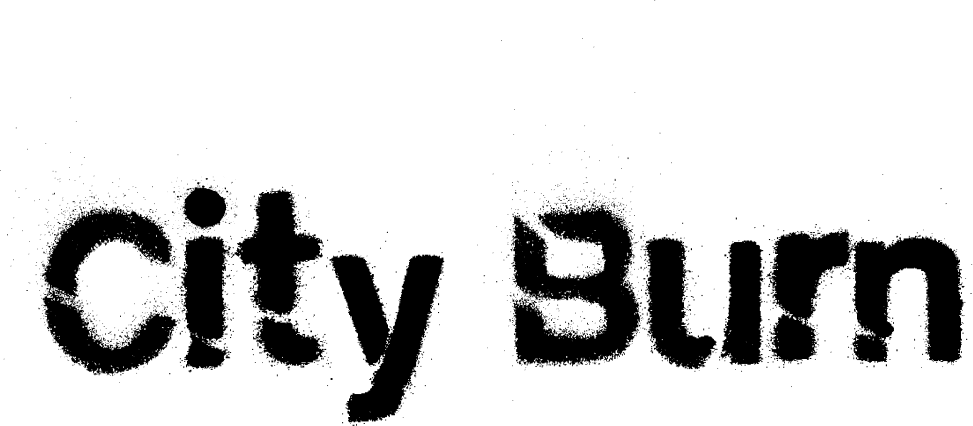
City Burn Font
If you want to give chills to others just by words, this horror font may come in handy for you. City Burn font has a bold and eroded look that gives a scary vibe to your text. You can use it for scary movie names and posters, sales, event, and party flyers, horror book titles, and channel banners.